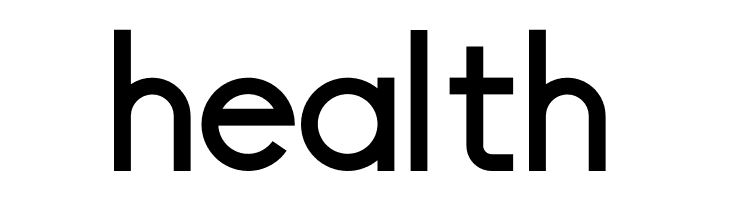
( Rahsia Design )
A bold, geometric font with a futuristic and modern style.
( Rahmat Hidayat )
An elegant, flowing script font with thin, delicate strokes and a handwritten appearance.
( Rahmat Hidayat )
An elegant, decorative font with whimsical swirls and cursive elements.
( Rahmat Hidayat )
An elegant, flowing script font with intricate loops and slender letterforms.
( Rahmat Hidayat )
A graceful and elegant script font with fluid, sweeping curves.
( Rahmat Hidayat )
An elegant, cursive font with intricate loops and swirls.
( Rahmat Hidayat )
A decorative cursive font with elegant loops and flourishes.
( Rahmat Hidayat )
An elegant, cursive font with a graceful, handwritten style.
( Rahmat Hidayat )
An elegant, flowing script font with intricate, decorative letterforms.